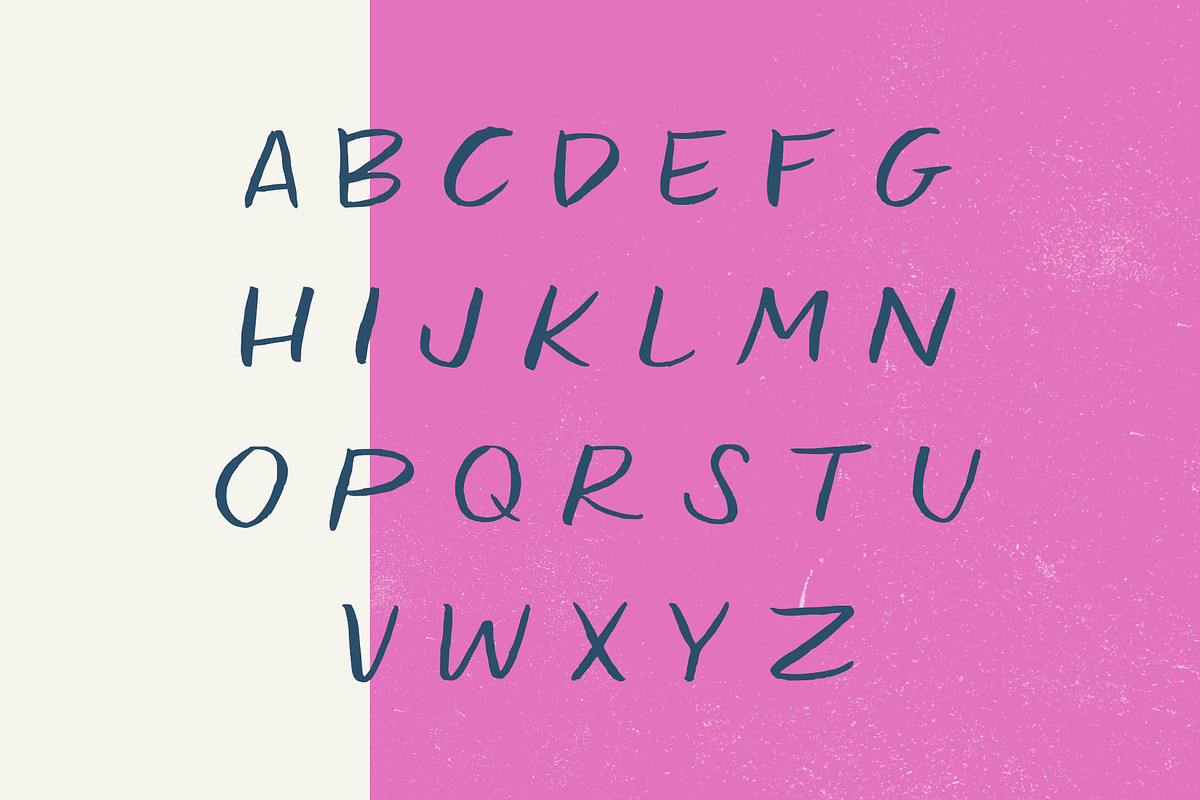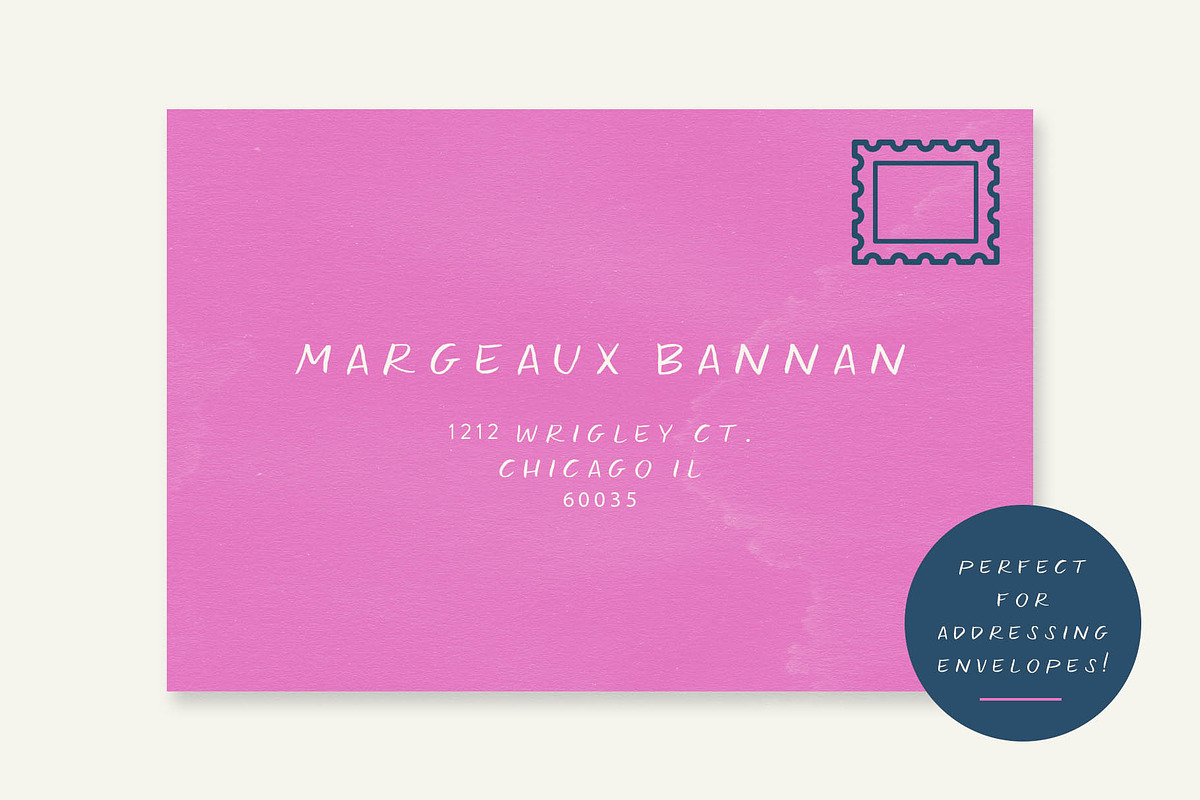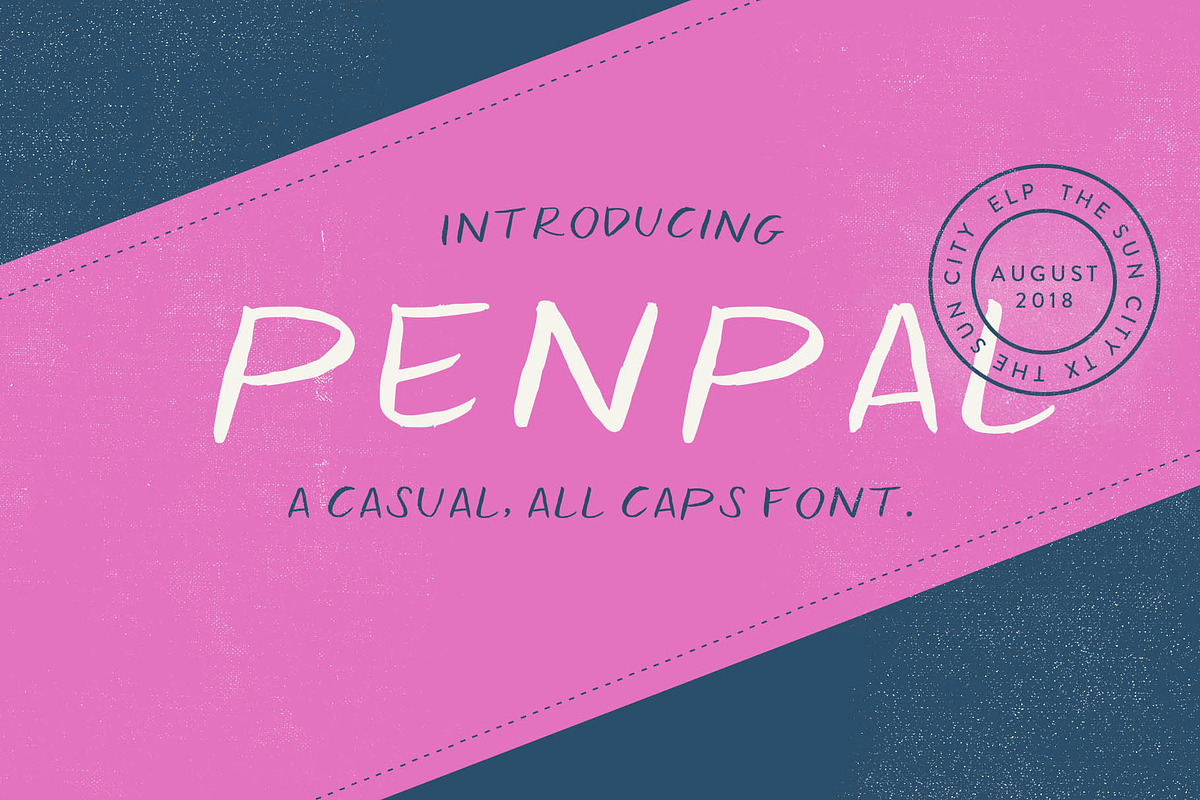
Penpal - a casual, all caps font
New to the shop! Penpal is a cute, handwritten font perfect for party invitations and addressing envelopes. I also love using Penpal for feminine and organic logo work and branding.